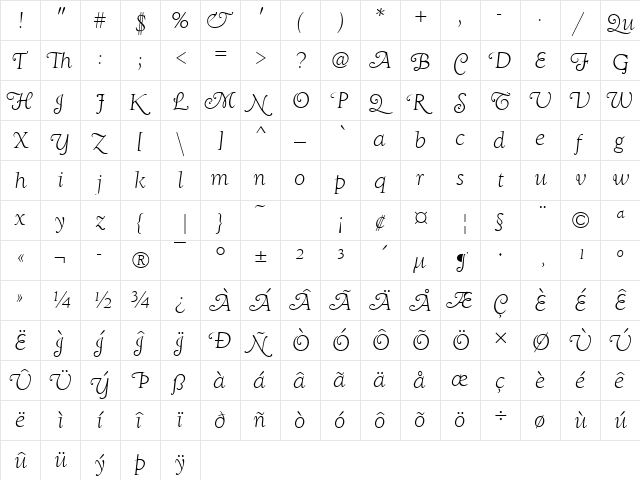
GoudySwaWtcTLig Italic
Design Context for GoudySwaWtcTLig Typeface
GoudySwaWtcTLig is a composed and adaptable typeface that performs quietly and consistently across a wide range of design contexts. Its italic angle brings a sense of urgency and motion to the letterforms.
Pro Tip: Try GoudySwaWtcTLig for annotation and caption copy alongside an upright companion — the contrast in angle creates a dynamic but ordered typographic system.